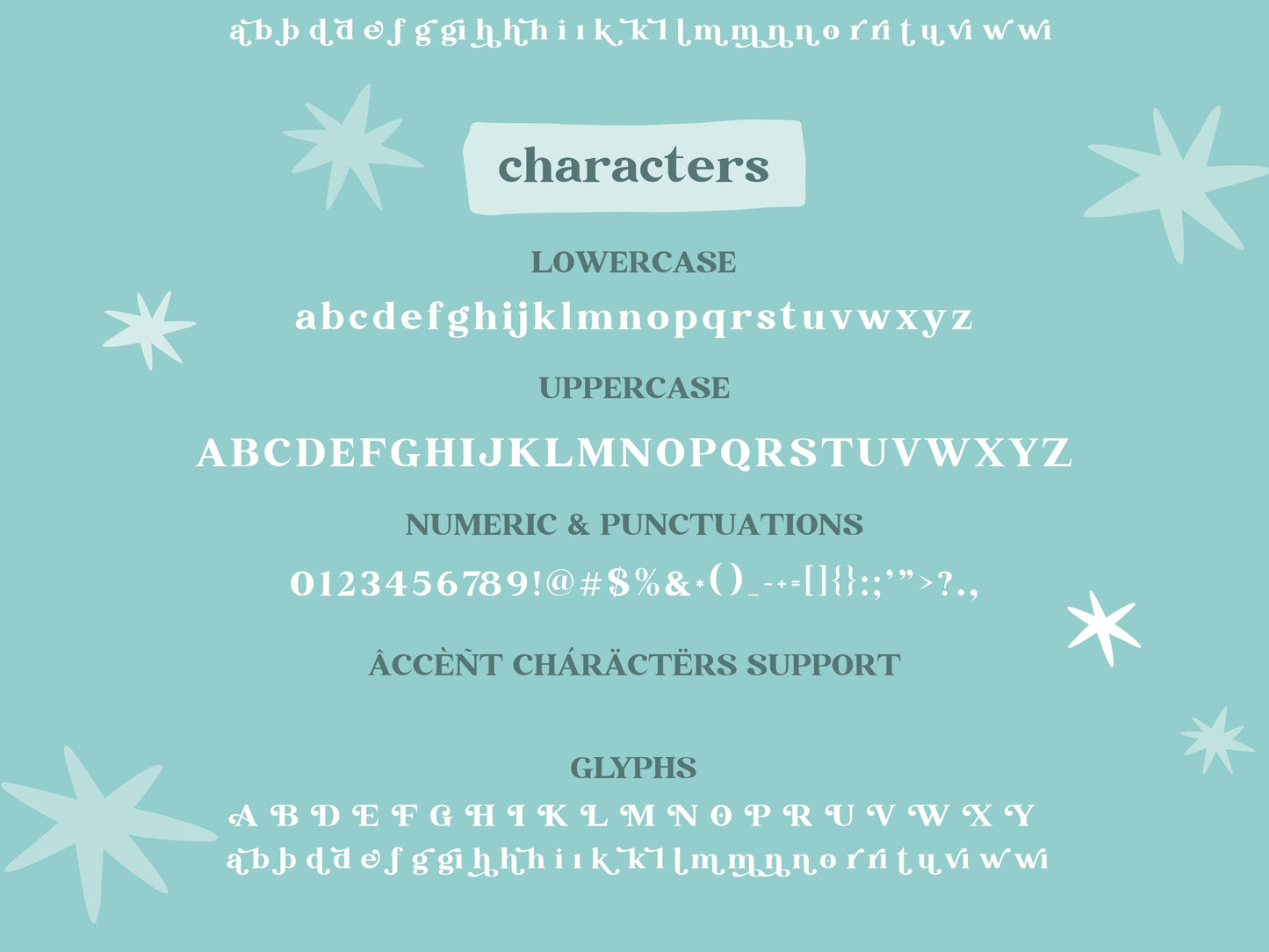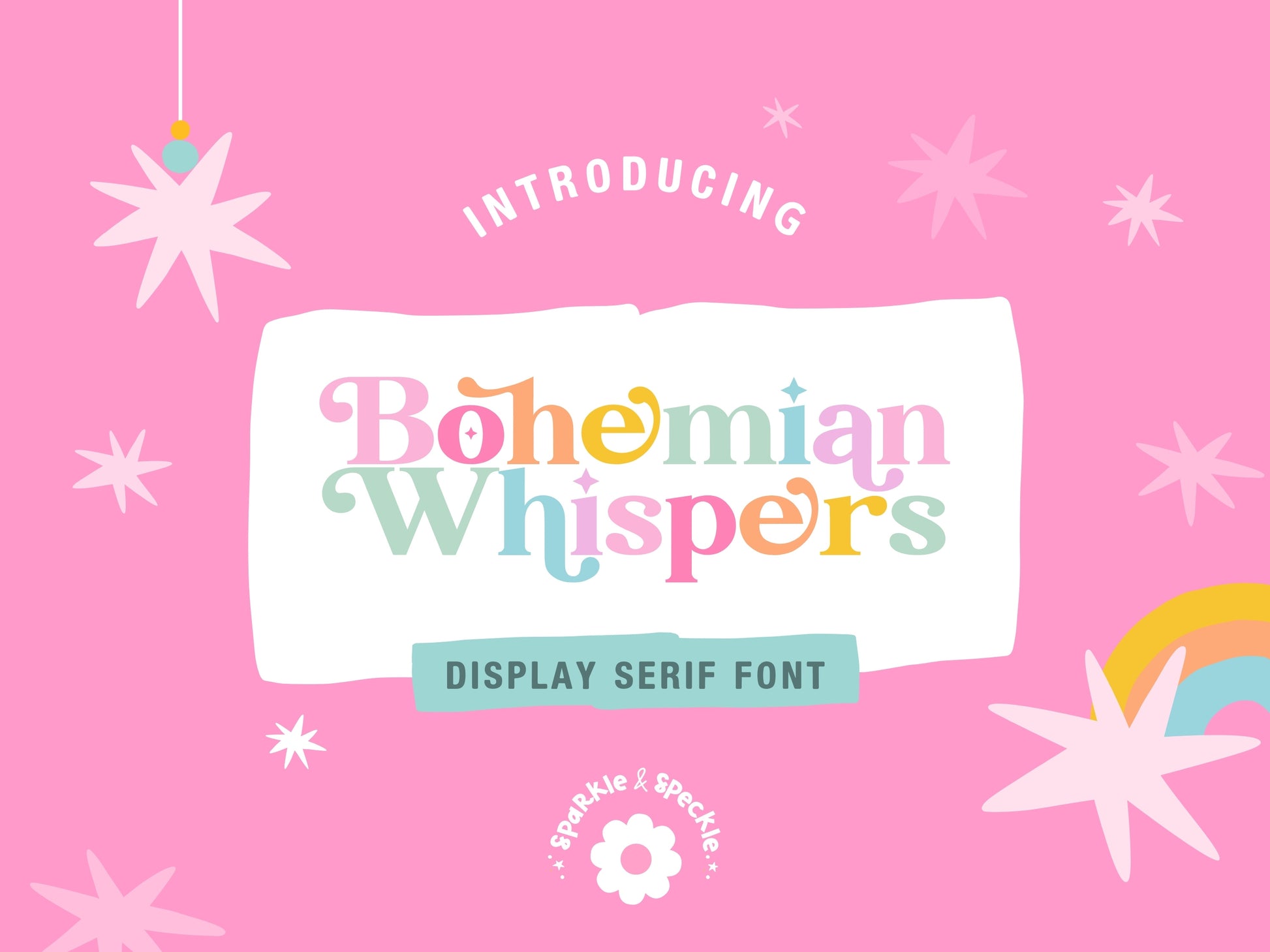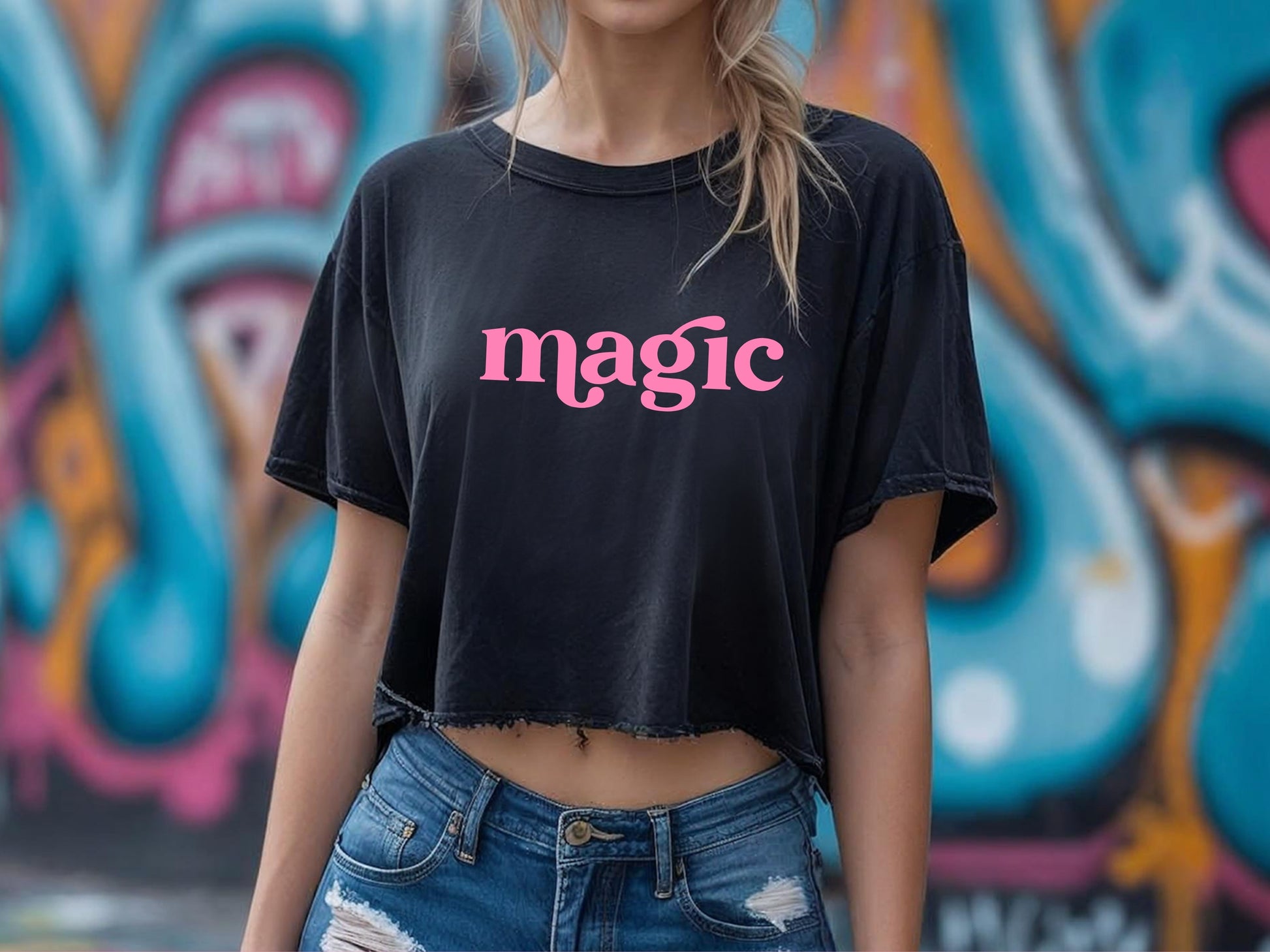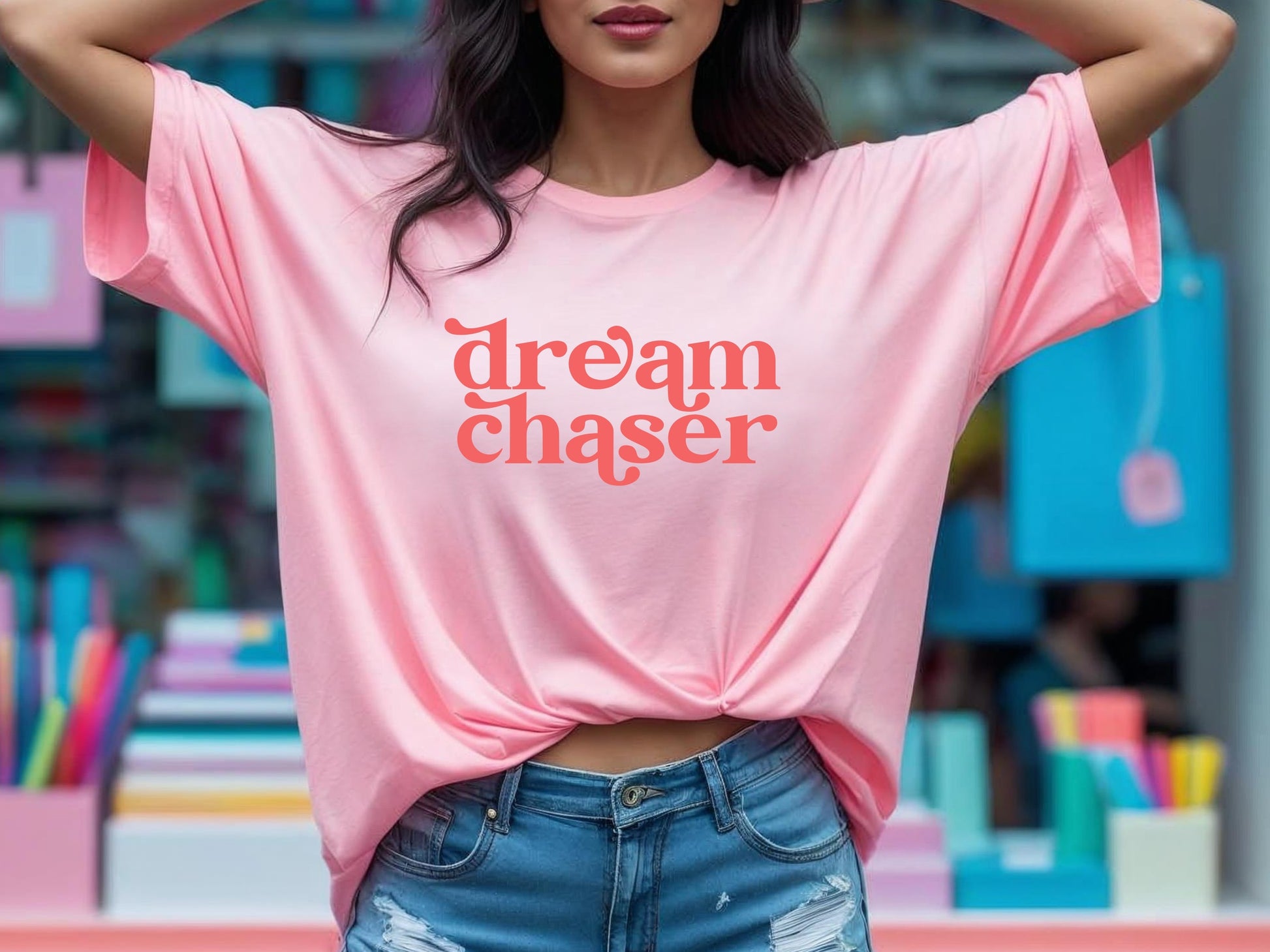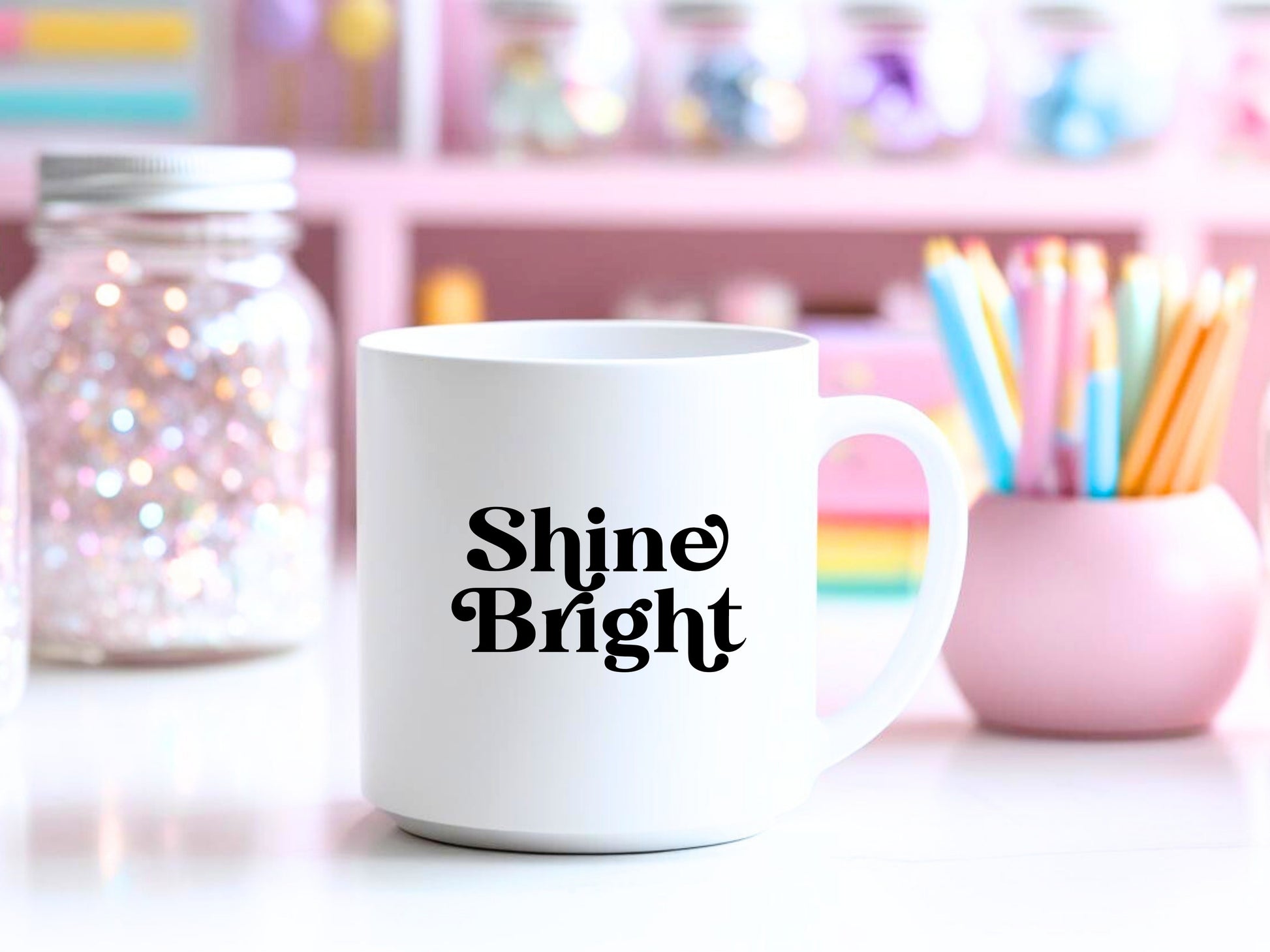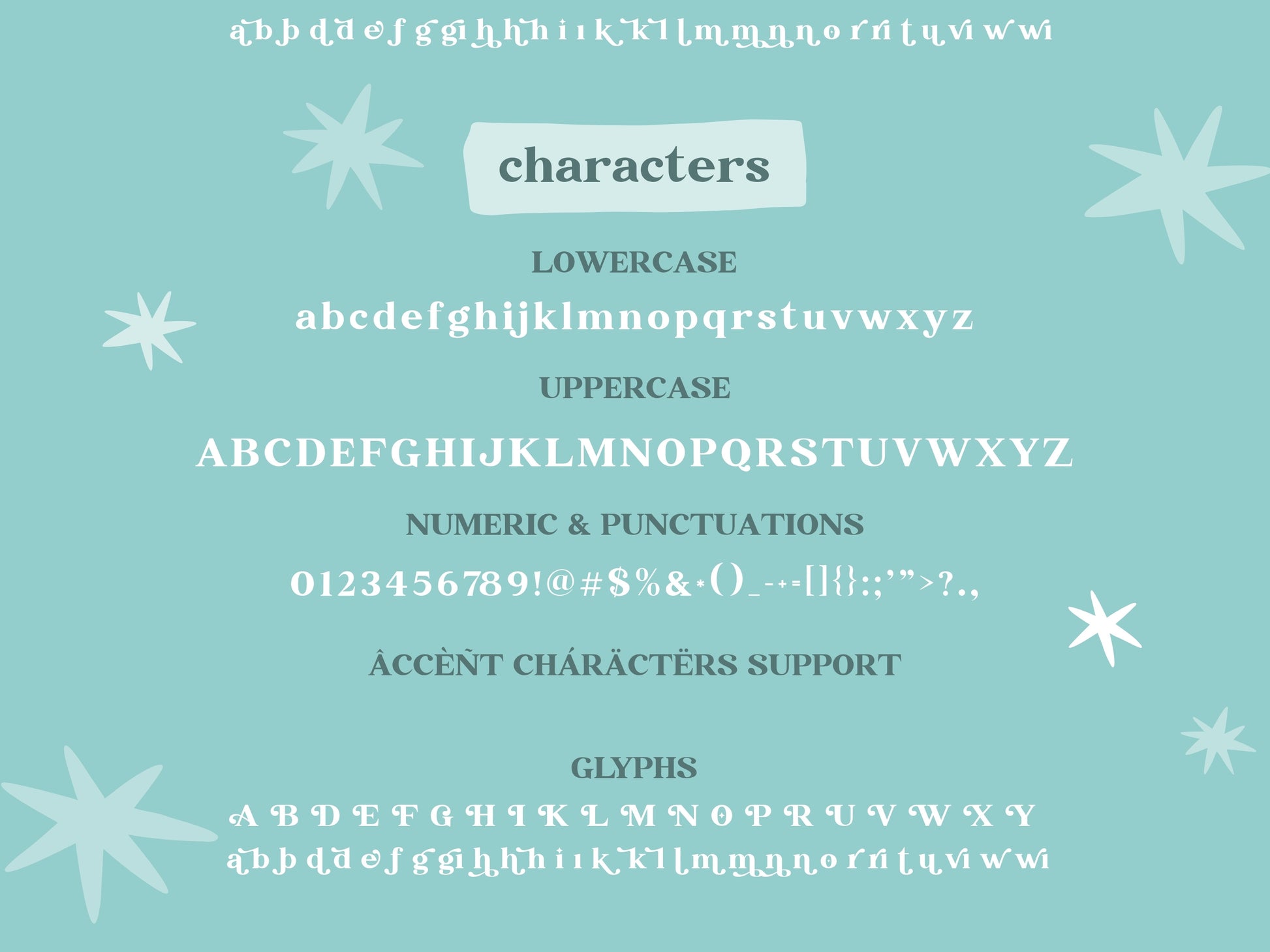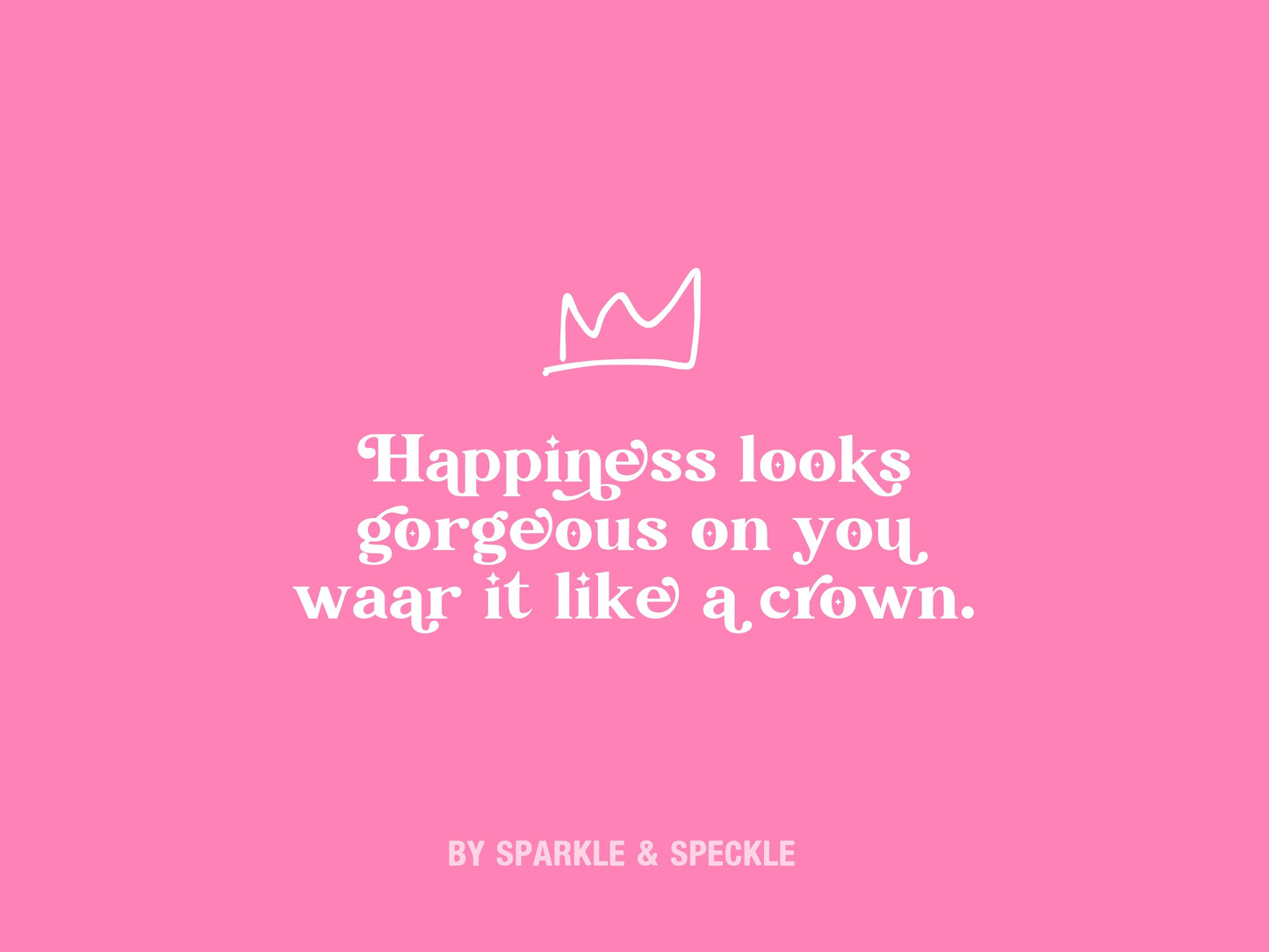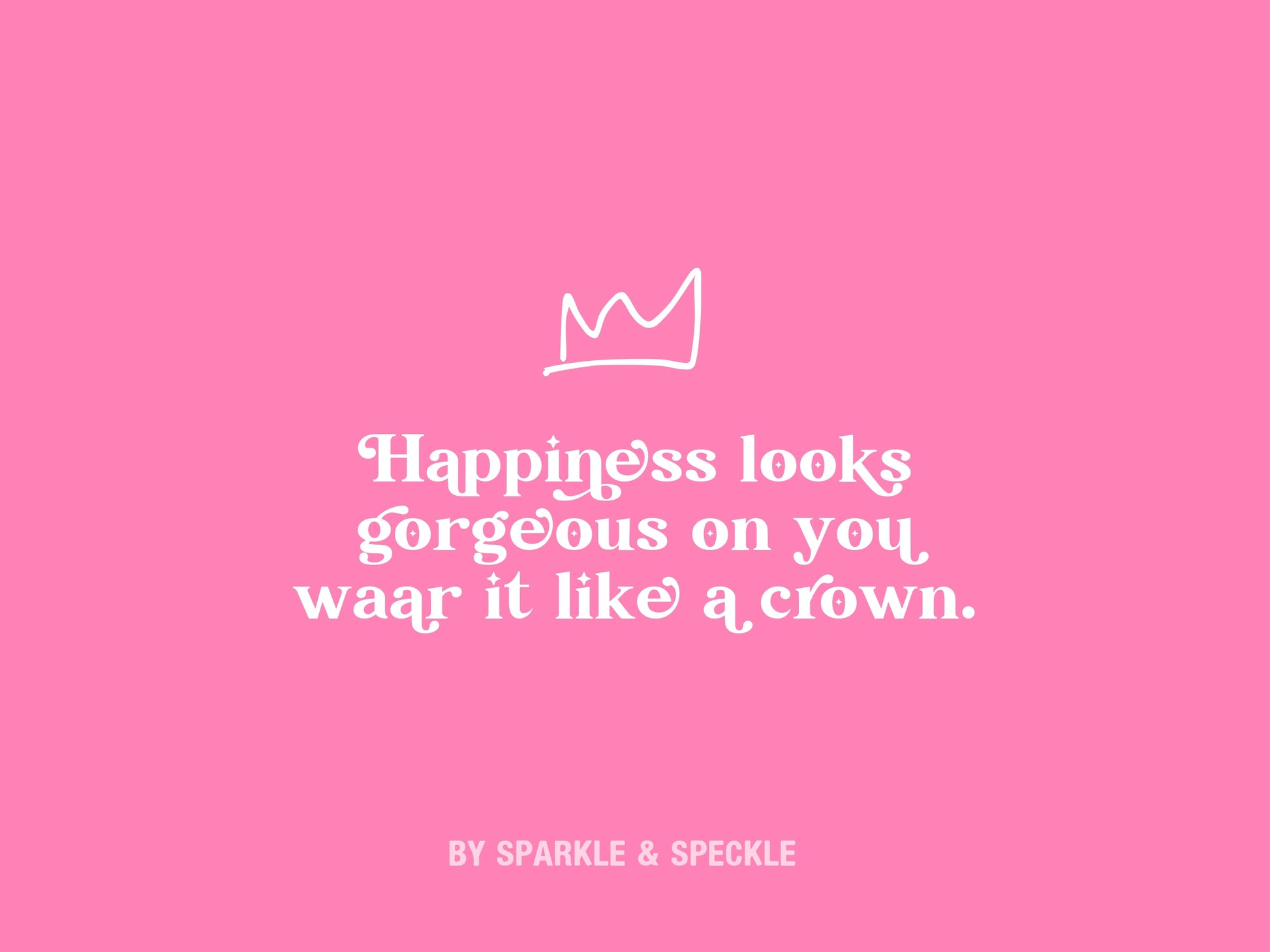
Bohemian Whispers Font – Retro Boho Serif Typeface
Introducing Bohemian Whispers Aesthetic font – a cute clean, bold serif font with a retro boho twist! This font offers a modern yet creative fun feel with its thick, symmetrical letterforms, and carefully crafted alternatives that allow you to dress up your text with stylish swishes and tails. The smooth, balanced curves and clean lines add a touch of sophistication while still exuding a playful, carefree vibe. Perfect for projects that need a bold statement. Bohemian Whispers font is ideal for logos, invitations, headlines and more—bringing a vibrant, boho-inspired energy to any design.
* Not every letter will have an alternate version—only certain letters do.